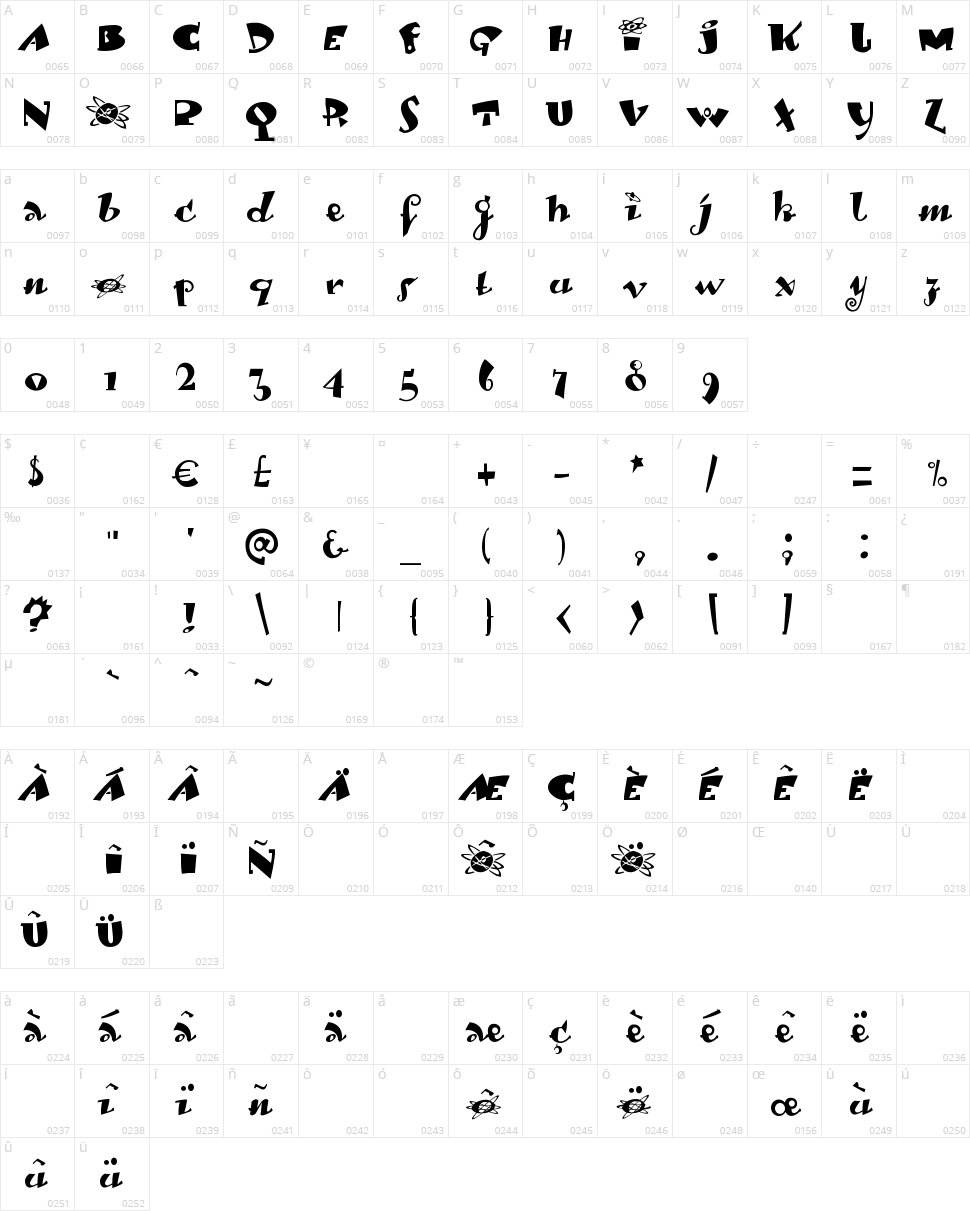
Lambada Dexter
Here are some fonts I made up.
For those really curious, here is what I had in mind creating these fonts.
SoleaMM was my first attempt to make a complete font, and I as feared the process to be too simple I decided to start it MultipleMaster. Good trick, it was NOT too simple. The starting idea was to catch the simplicity and modern/antique feeling of some Roman grafitti (maybe from Pompei) I once saw in a book. This kind of starting idea usually lead to a result with a completely different feeling, which is the case here. Though, I like the font, especialy for big short headlines, used wide-spaced.
Brouss is a quick'n'dirty'n'happy brush work.
LondonMM tries to be both humanistic and geometrical, and probably fails in both. It should be usable, though, at least if I was better at fine-tuning the kernings...
LambadaDexter is the only font I ever get paid to design! So I can claim to be a pro! Gee!
If you find it cartoony, no wonder, it was for a french cartoon network.
Fonitek is intended for kidsbooks, but if you feel like using it for a Wittgenstein reprint, you're the boss.